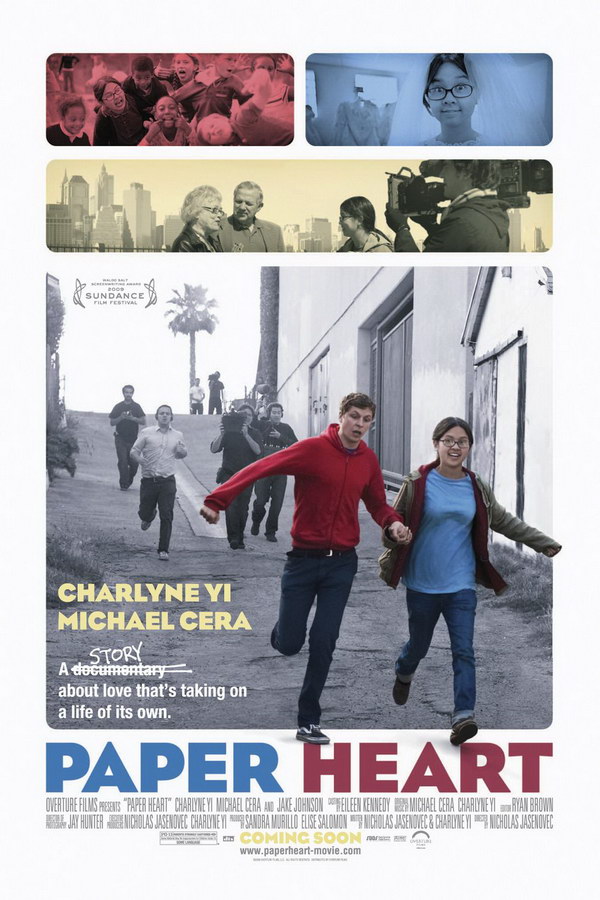
Paper Heart Font
ComedyPaper Heart is a 2009 romantic comedy directed by Nicholas Jasenovec. The movie follows comedian Charlyne Yi as she embarks on a quest across America to understand the nature of love, blending documentary and fictional elements to create a unique and quirky storyline.
The movie title on the poster is probably in Eagle Bold font, originally designed by Morris Fuller Benton as a titling font and now available in four weights. For more details please check here.